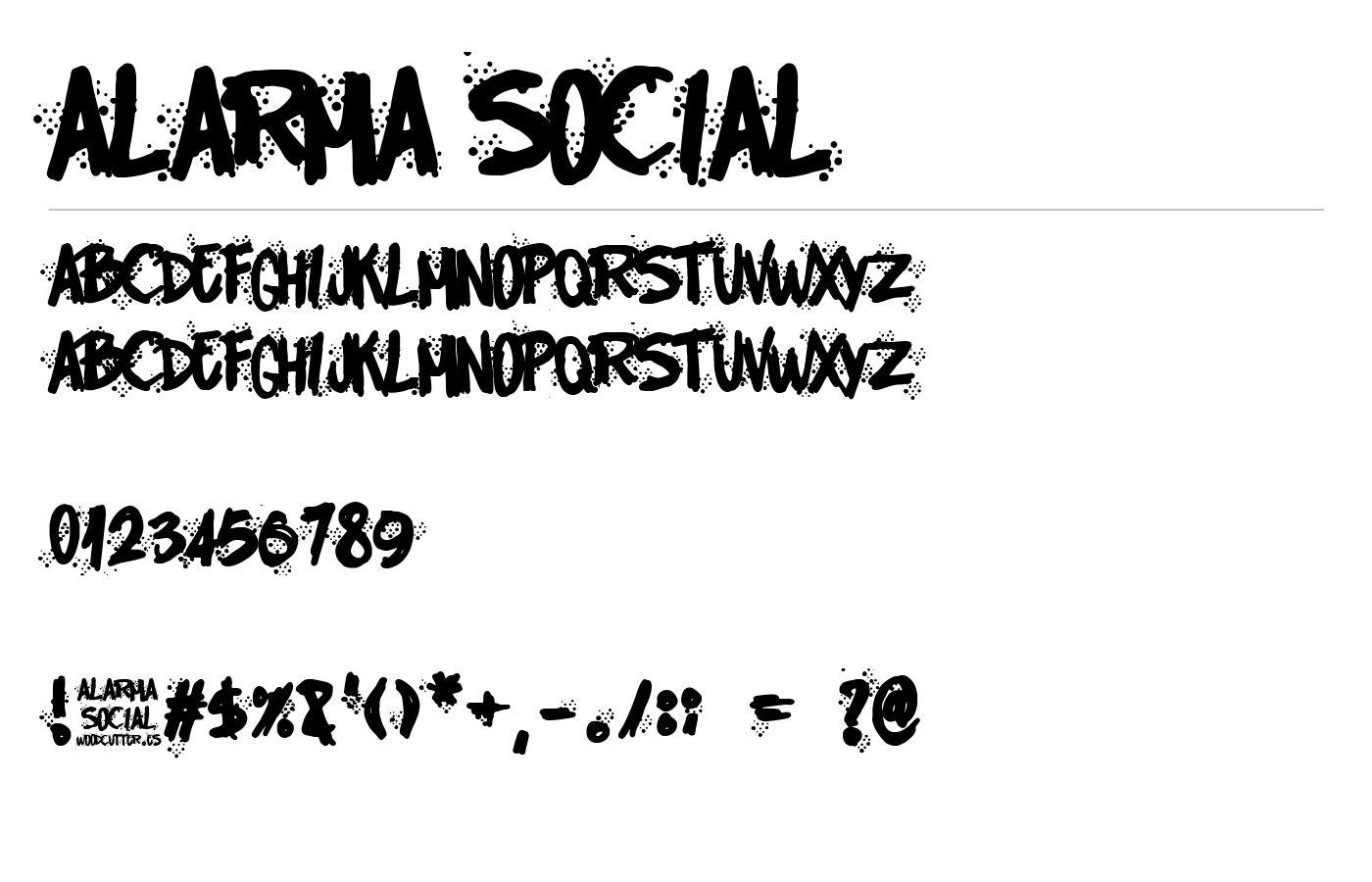
Alarma Social is a bold, playful handwritten font with a strong graffiti style, featuring thick, uneven strokes and a distinctive splattered texture around each letter. Its energetic, urban vibe makes it perfect for eye-catching headlines, streetwear branding, posters, and creative projects that want to convey dynamism and rebellious flair. This font works best in display contexts where a unique, edgy personality is needed to grab attention.
Alarma Social Font
About Alarma Social Font